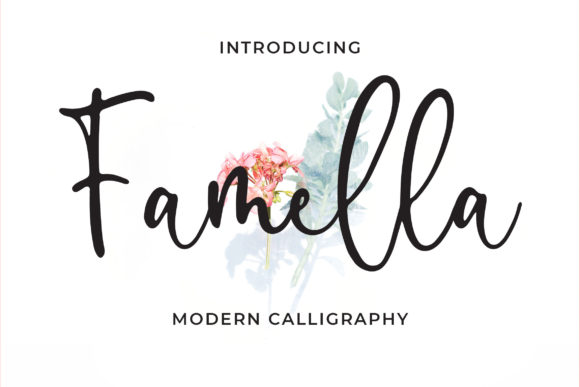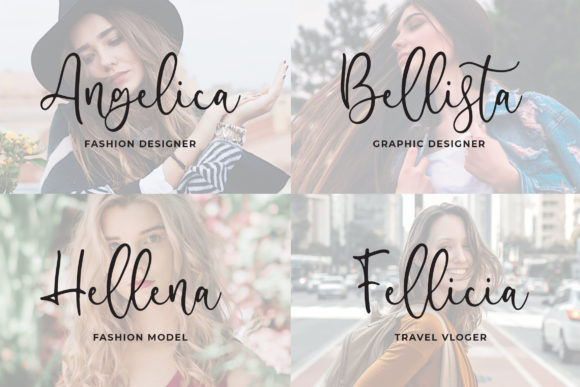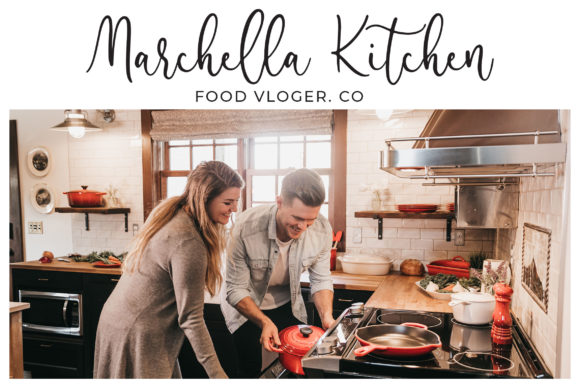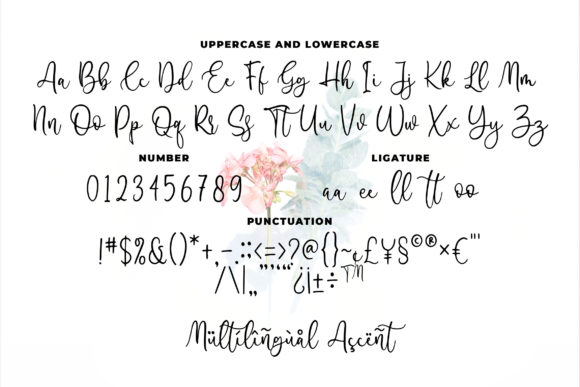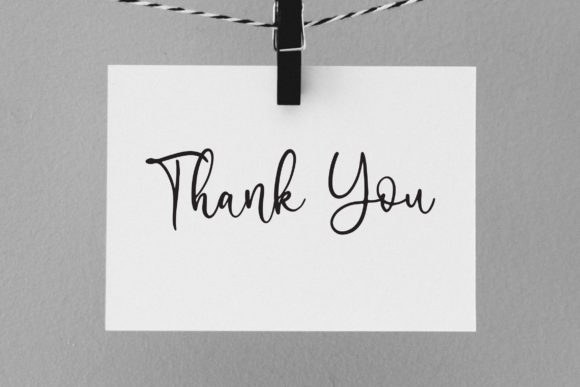
Famella Font
About Famella Font
Famella is a modern calligraphy style font made by brush pen. It can add that special personal touch to any design project!